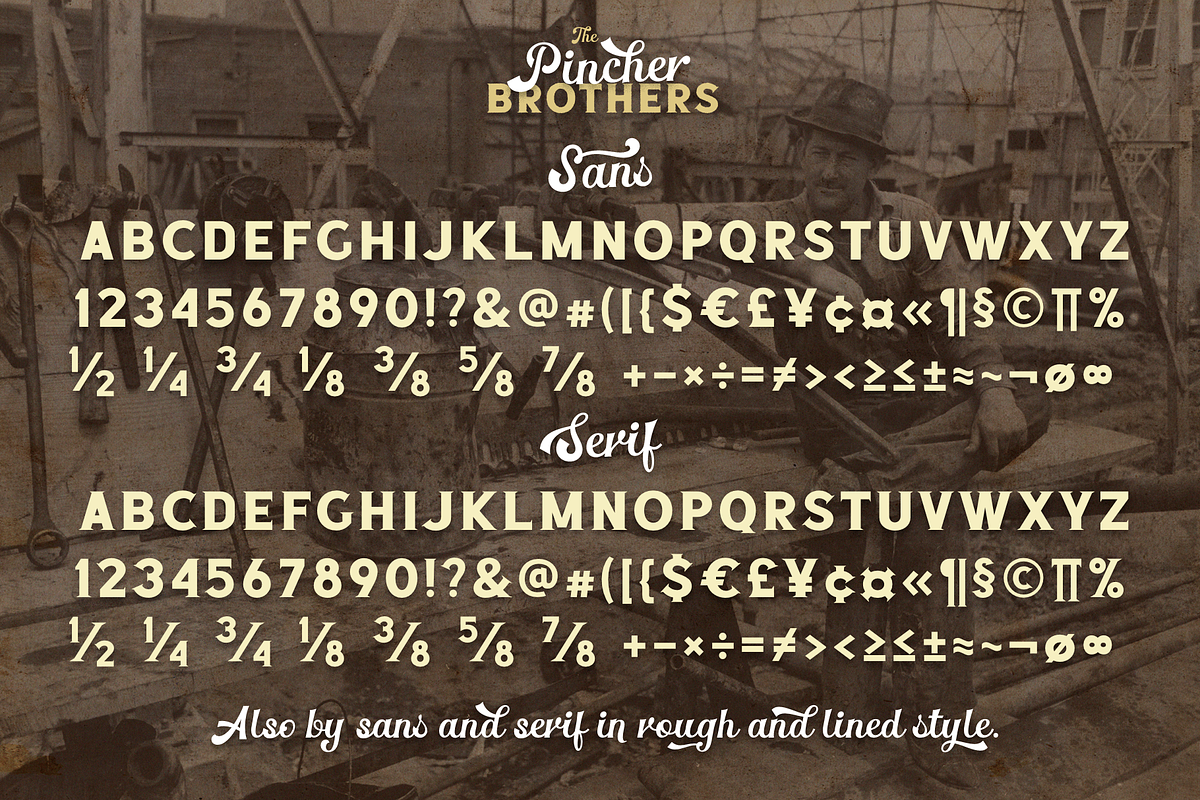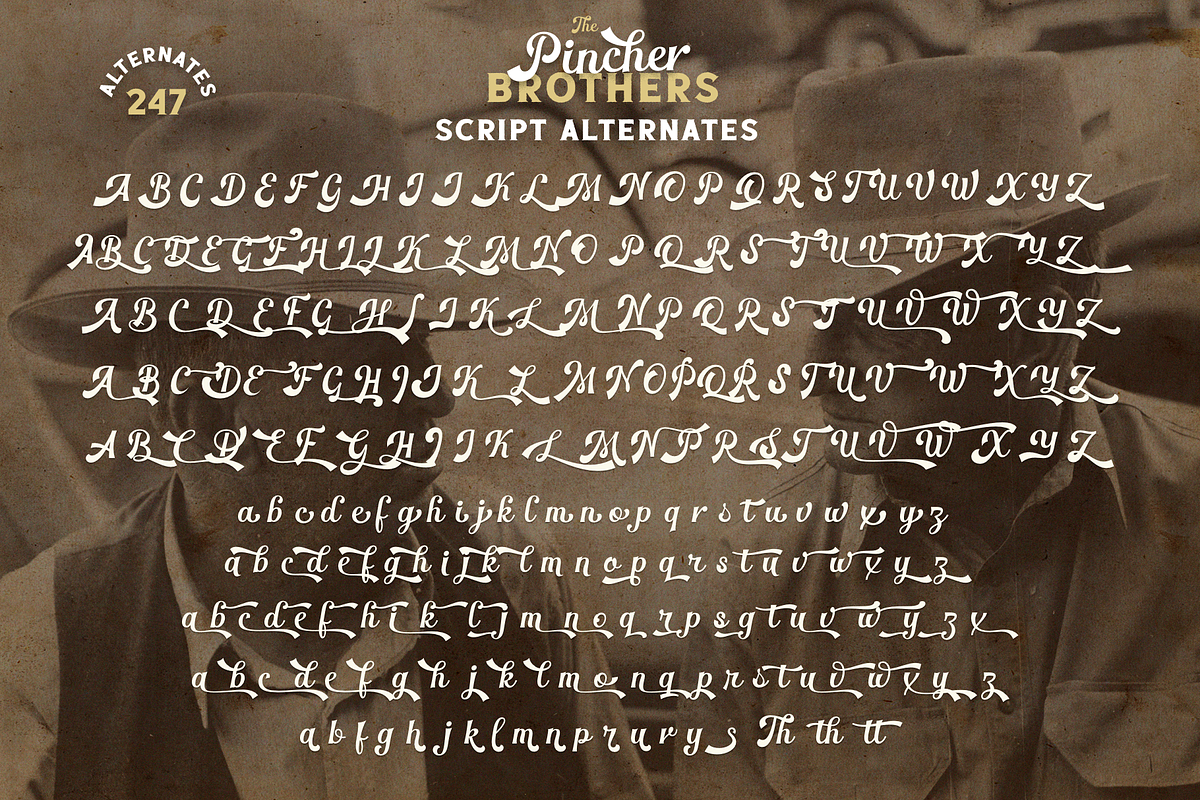
The Pincher Brothers
The Pincher Brothers this is a beautiful vintage collection of fonts that consists of a script, serif, sans serif and also rough styles, to help you create your project in a clean or rough style. Pay attention to the script, it has many of swash and alternates for lowercase uppercase and lowercase, that add personality to your design and make it unique.
Following international symbols support: ÀÁÂÃÄÅĄÇĆÈÉÊËĘÌÍÎÏÐÑŃŁÒÓÔÕÖØÙÚÛÜŚŠŸÝŹŻŽßàáâãäåçèéêëìíîïðñòóôõöøùúûüýÿąćęłńśšźżž
Full alphabet with Uppercase and Lowercase A-Z
Numbers, fractions
Punctuation and mathematical symbols
Swash